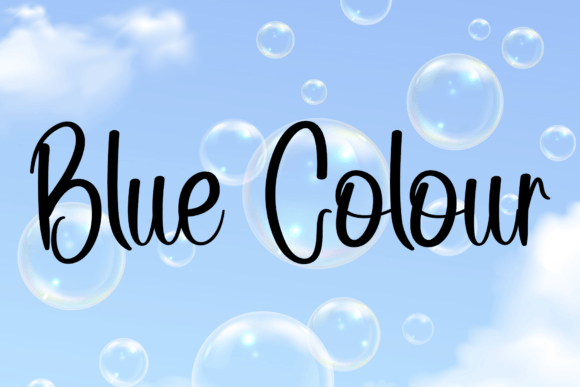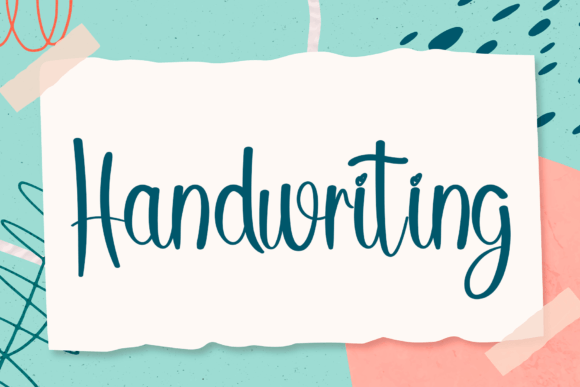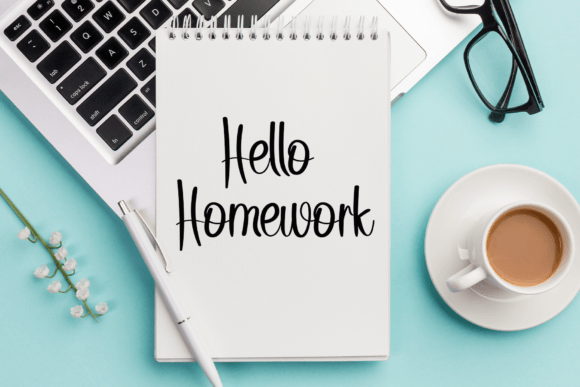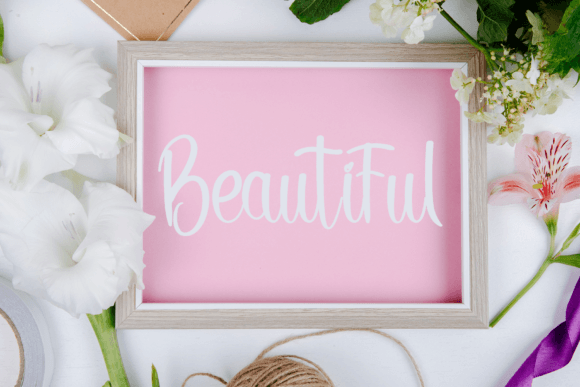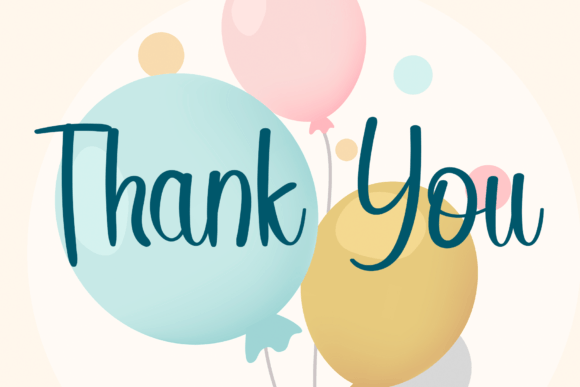
Introducing Birthday Card Font: The Perfect Handwritten Style for Your Next Project
Are you looking for a font that can add a personal touch to your designs? Look no further than the Birthday Card Font! This simple handwritten font is perfect for a wide range of applications, from greeting cards to headlines, and is sure to bring a natural and effortless feel to your next project.
What is Birthday Card Font?
Birthday Card Font is a beautifully crafted handwritten font that is designed to mimic the look and feel of a handwritten message on a birthday card. With its simple and elegant design, this font is perfect for anyone looking to add a personal touch to their designs. Whether you’re a designer, crafter, or DIY enthusiast, Birthday Card Font is a versatile and easy-to-use font that can help you create stunning designs in no time.
Key Features of Birthday Card Font
- Handwritten style: Birthday Card Font features a beautiful handwritten style that is perfect for adding a personal touch to your designs.
- Simple and elegant design: The font’s simple and elegant design makes it perfect for a wide range of applications, from greeting cards to headlines.
- Versatile: Birthday Card Font is a versatile font that can be used for a variety of projects, including scrapbooking, card making, and digital design.
Applications of Birthday Card Font
Birthday Card Font is a versatile font that can be used for a wide range of applications, including:
- Greeting cards: The font’s handwritten style makes it perfect for creating personalized greeting cards for special occasions.
- Headlines: Birthday Card Font can be used to create eye-catching headlines for blogs, websites, and social media posts.
- Scrapbooking: The font’s simple and elegant design makes it perfect for scrapbooking and other paper crafting projects.
- Digital design: Birthday Card Font can be used for digital design projects, such as creating social media graphics, blog posts, and website headers.
Tips for Using Birthday Card Font
Here are a few tips for using Birthday Card Font in your designs:
- Use it for emphasis: Birthday Card Font is perfect for adding emphasis to your designs. Use it to highlight important information or to create eye-catching headlines.
- Pair it with other fonts: Birthday Card Font can be paired with other fonts to create a unique and interesting design. Try pairing it with a bold font for a striking contrast.
- Experiment with colors: The font’s simple design makes it perfect for experimenting with different colors and textures. Try using it with bright and bold colors to create a fun and playful design.
Birthday Card Font is a beautiful and versatile handwritten font that is perfect for adding a personal touch to your designs. With its simple and elegant design, this font is sure to bring a natural and effortless feel to your next project. Whether you’re a designer, crafter, or DIY enthusiast, Birthday Card Font is a great choice for anyone looking to create stunning designs.